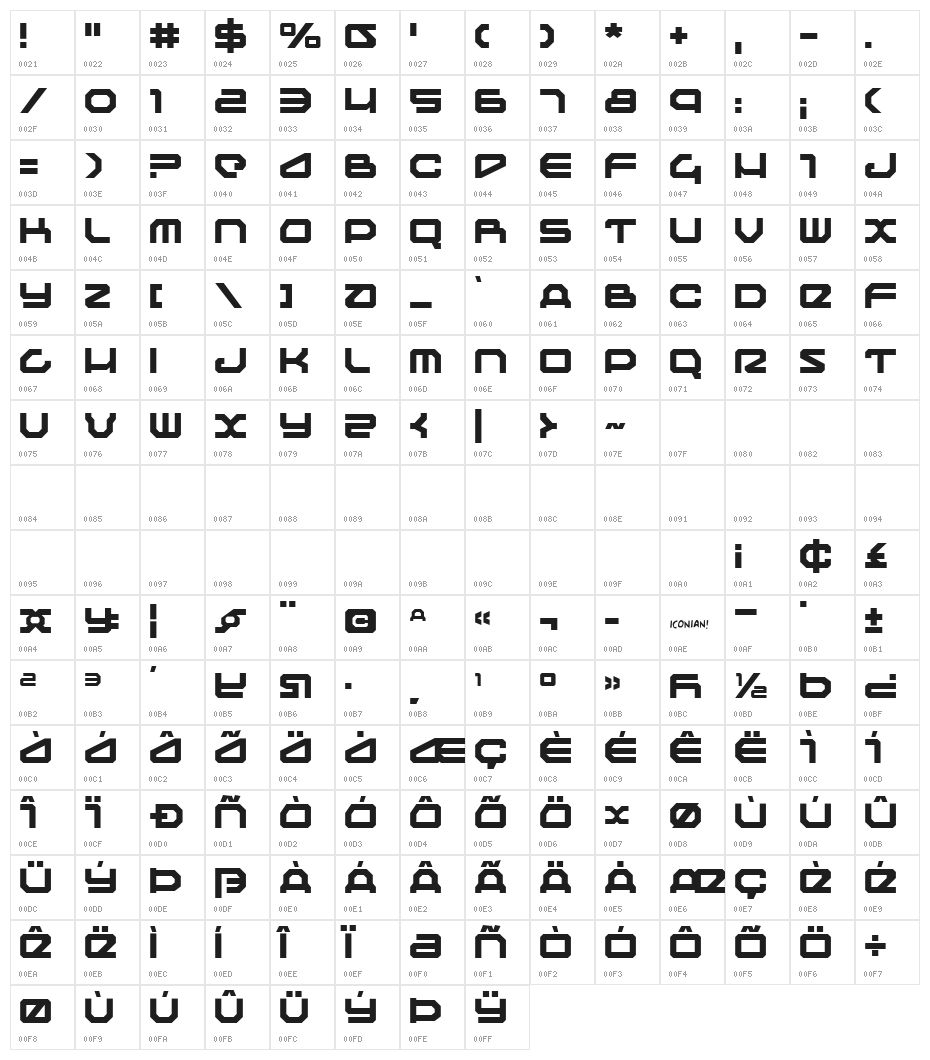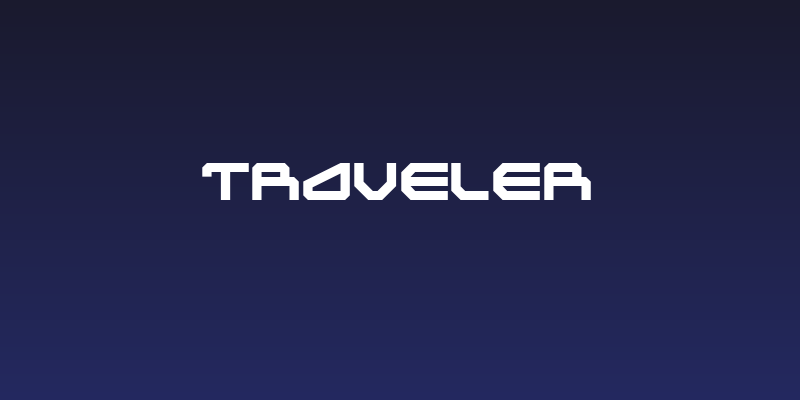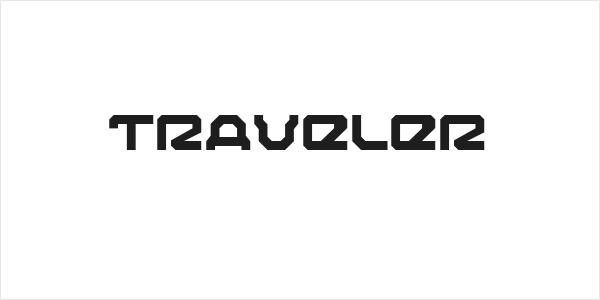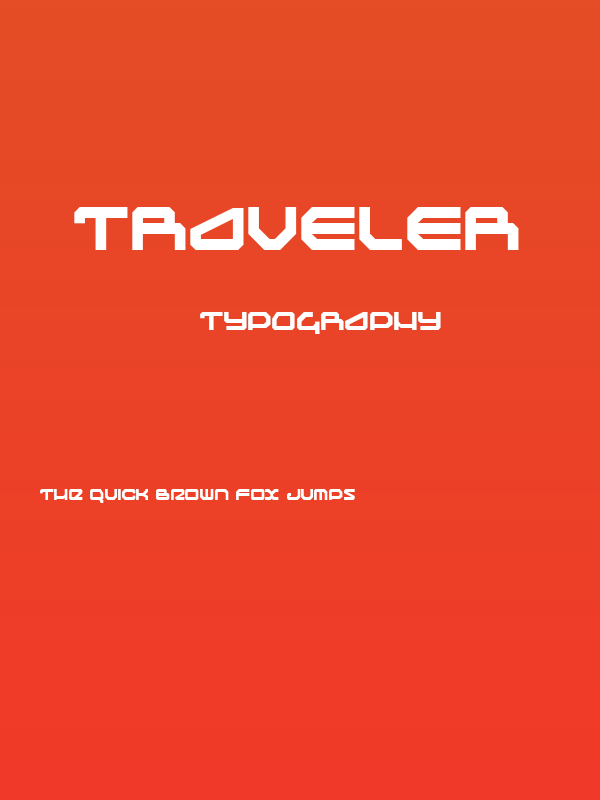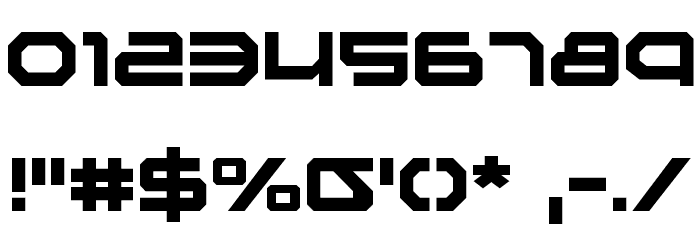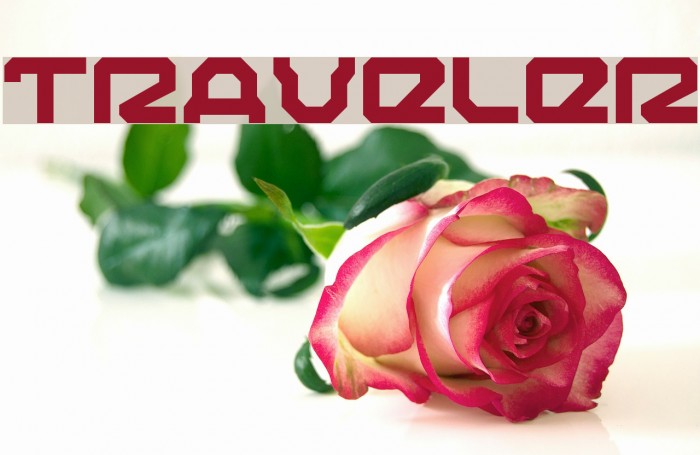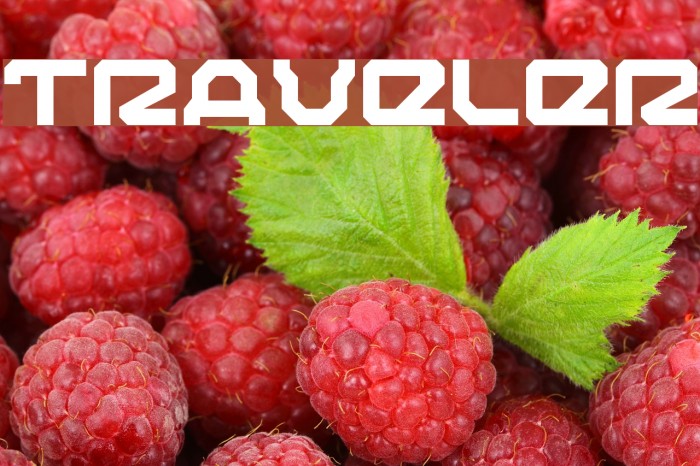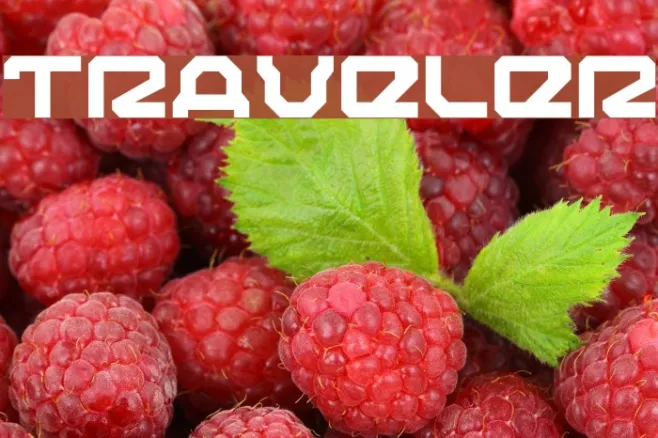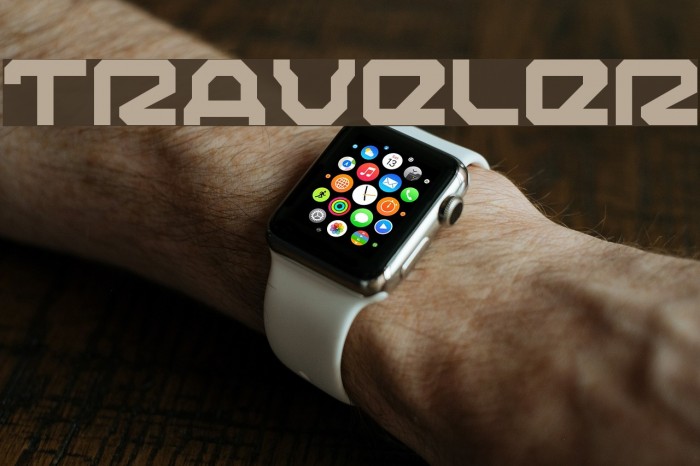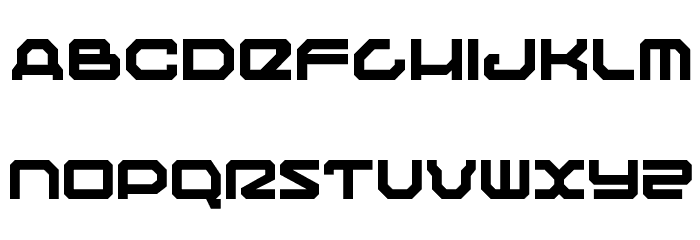
Traveler Font
Traveler Description
This font features a bold, futuristic design with angular and geometric shapes. The characters are constructed with sharp edges and straight lines, giving it a modern and tech-inspired appearance. The uppercase and lowercase letters maintain a consistent style, with a uniform height and width that enhances readability. The numbers and special characters follow the same design principles, ensuring a cohesive look across all glyphs. The font's unique style makes it stand out, suitable for projects that require a distinctive and contemporary aesthetic.
| Proposed Projects | Ideal for technology branding, sci-fi movie posters, video game titles, and modern digital interfaces. |